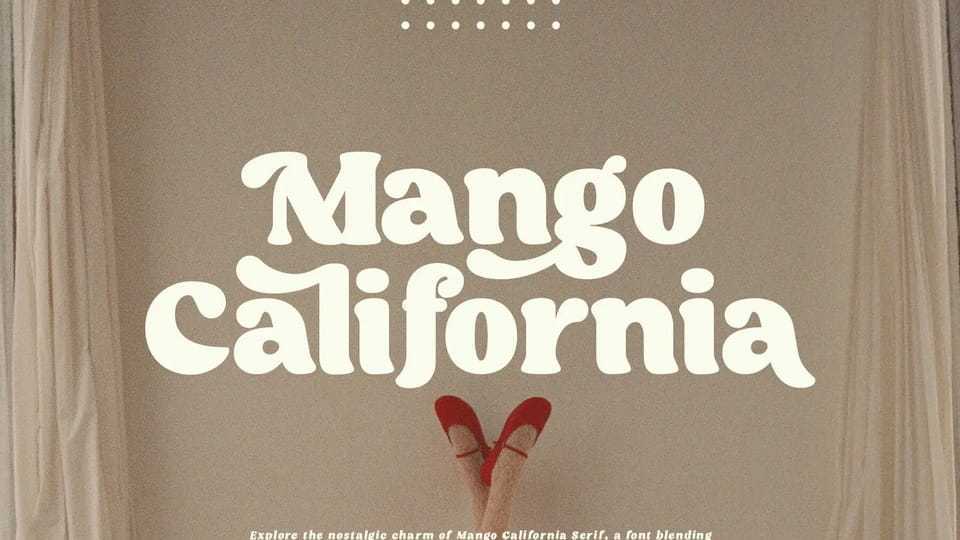
Download Mango California, a font blending retro, elegant, and modern elements. Carefully crafted, this font exudes classic vibes with a touch of contemporary flair, suitable for various DIY projects, including Cricut designs.